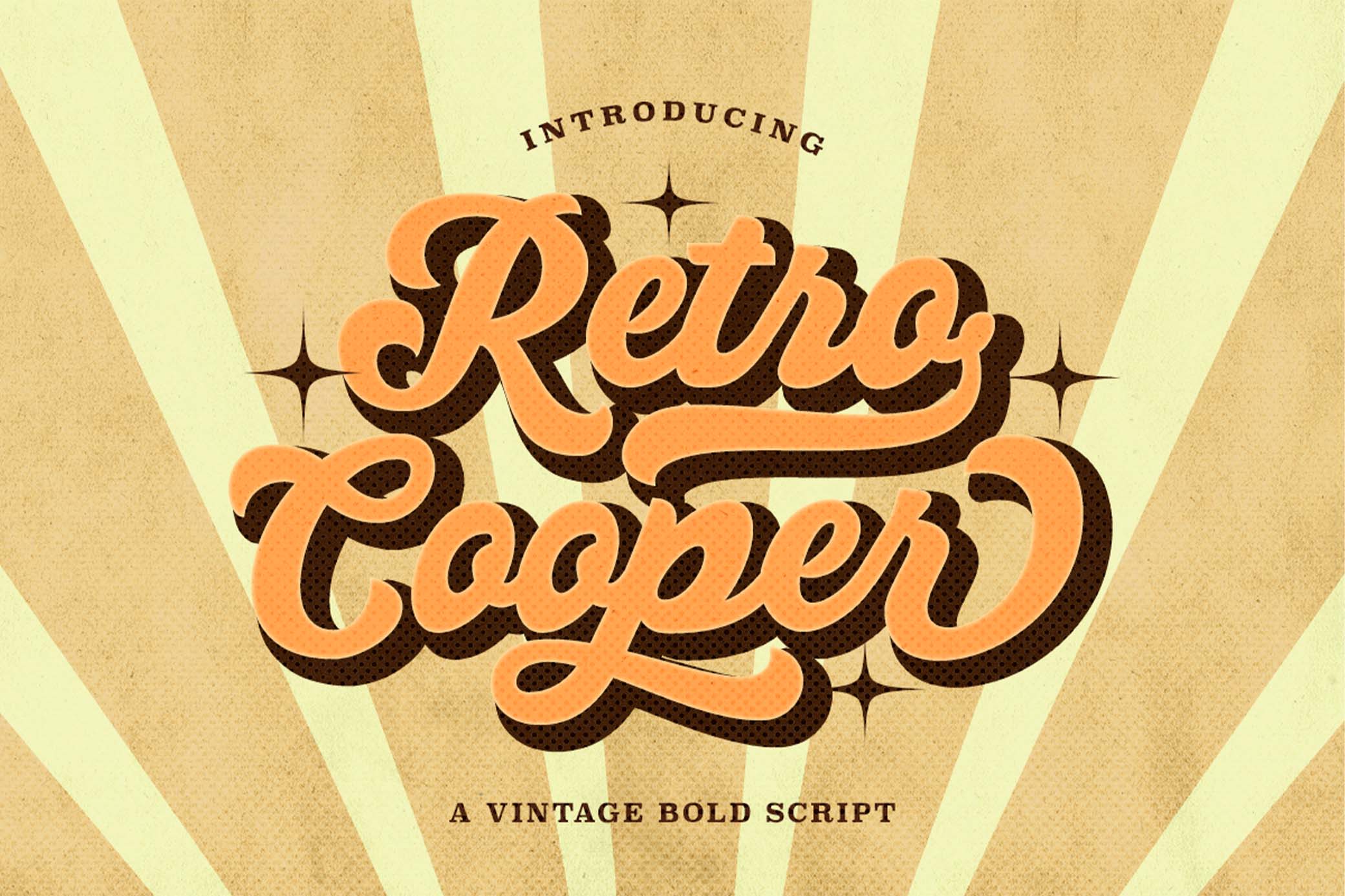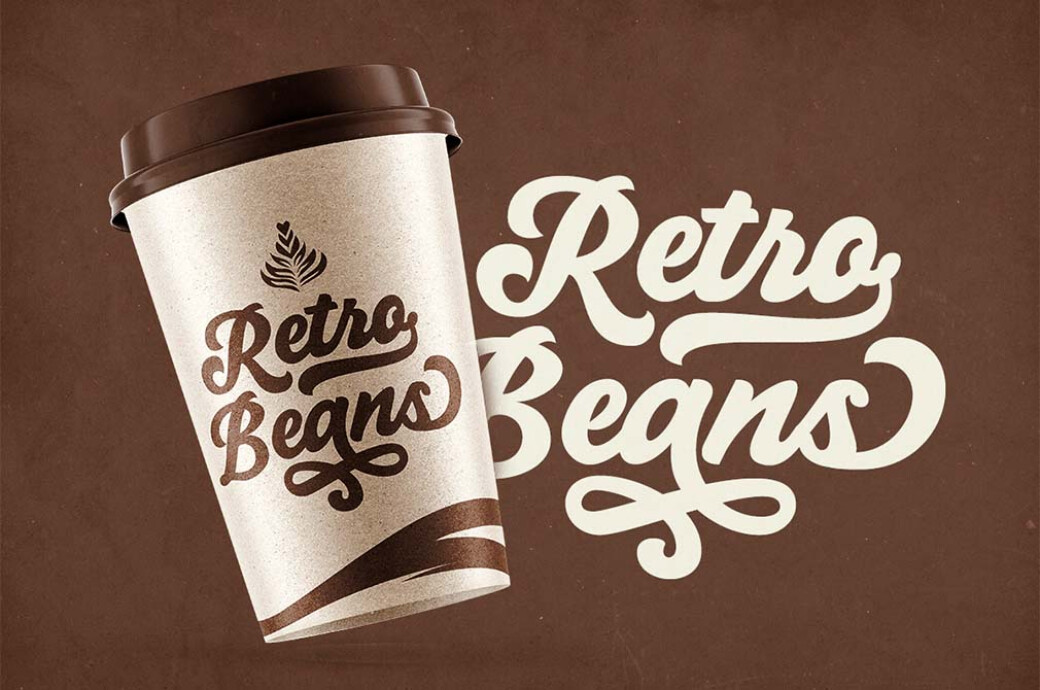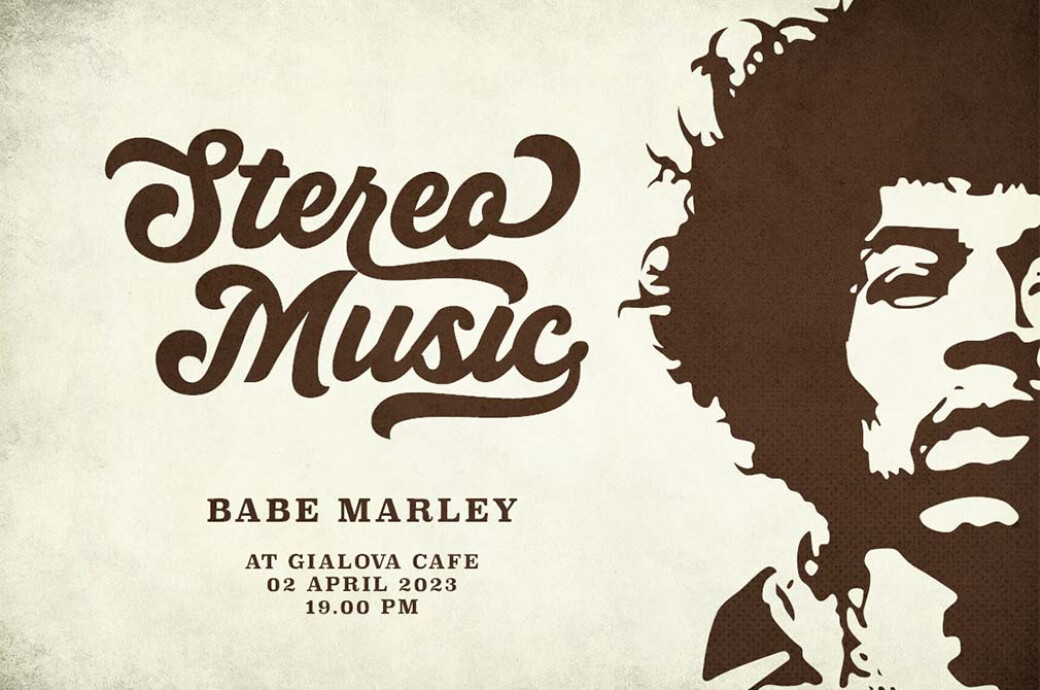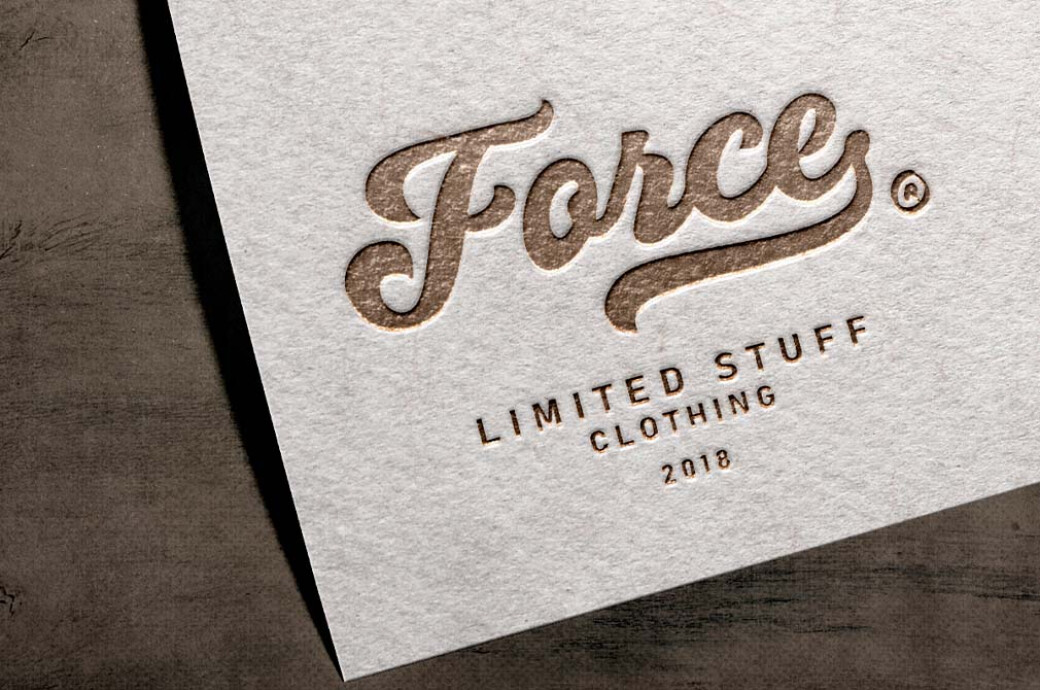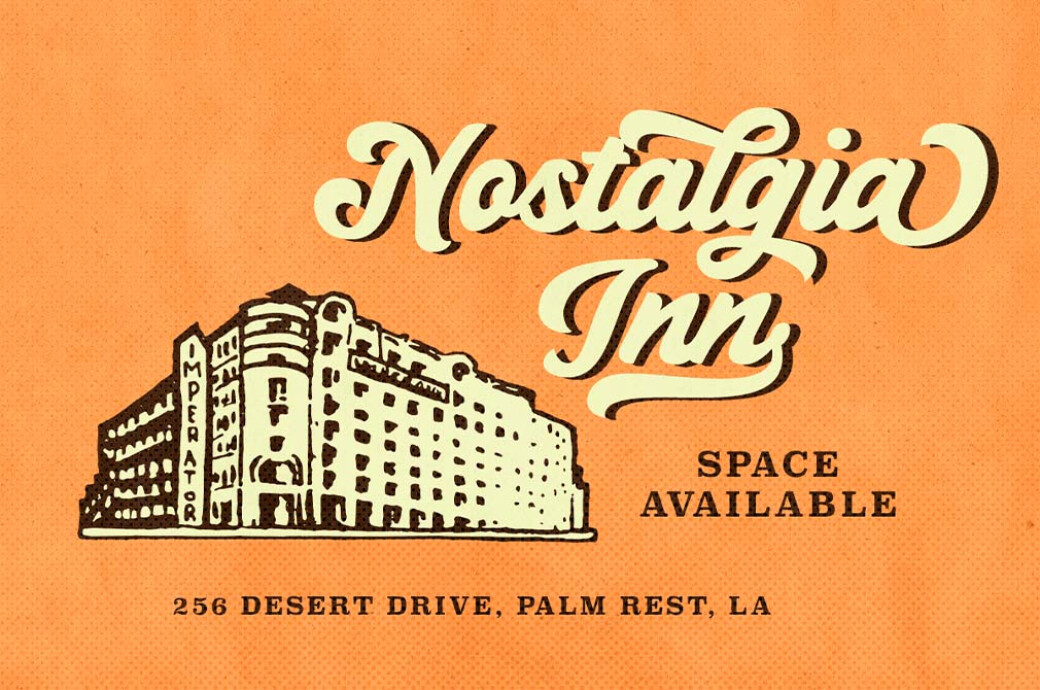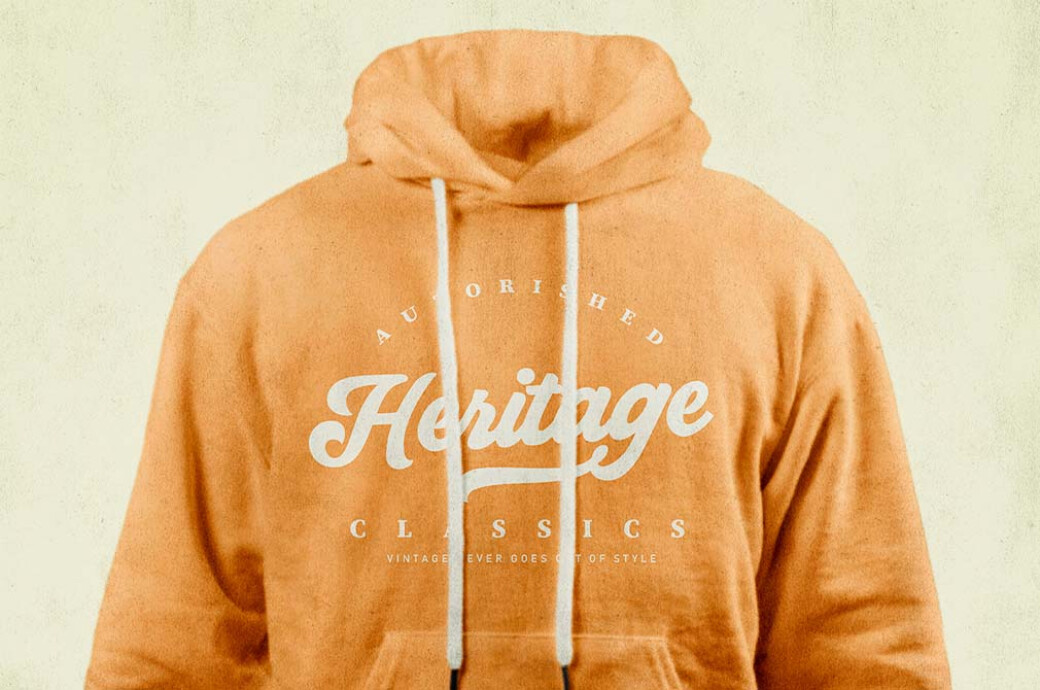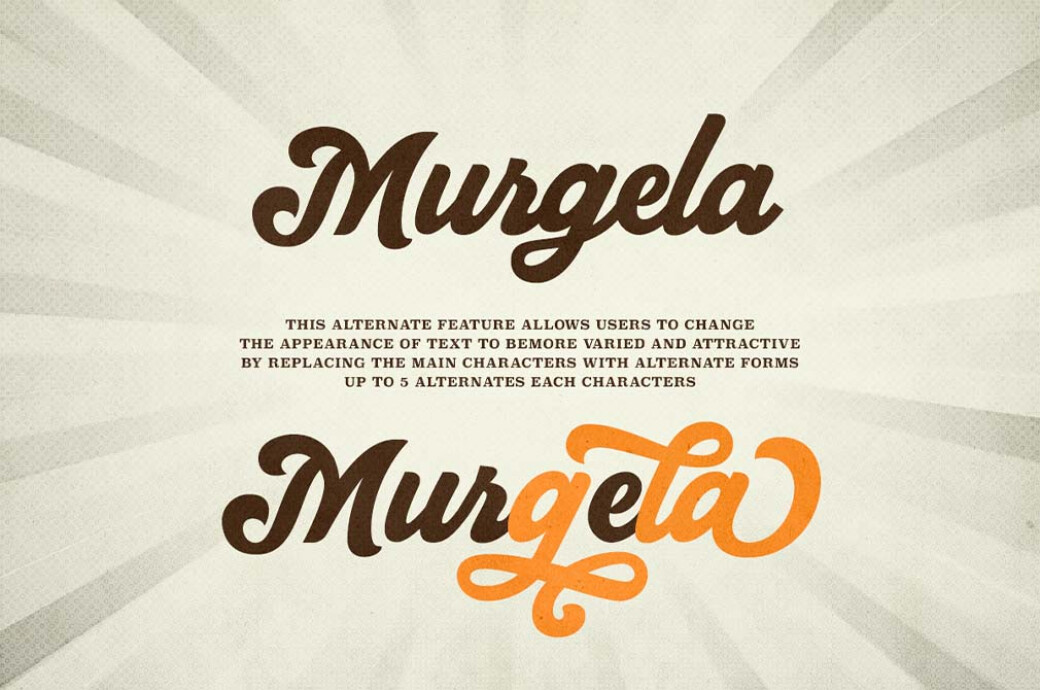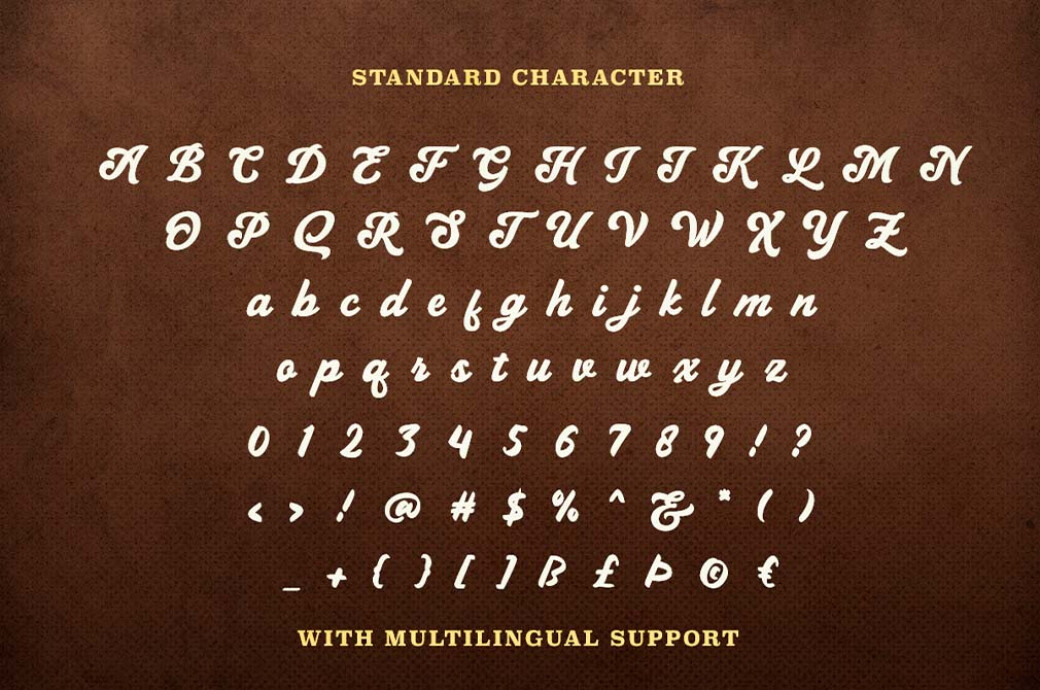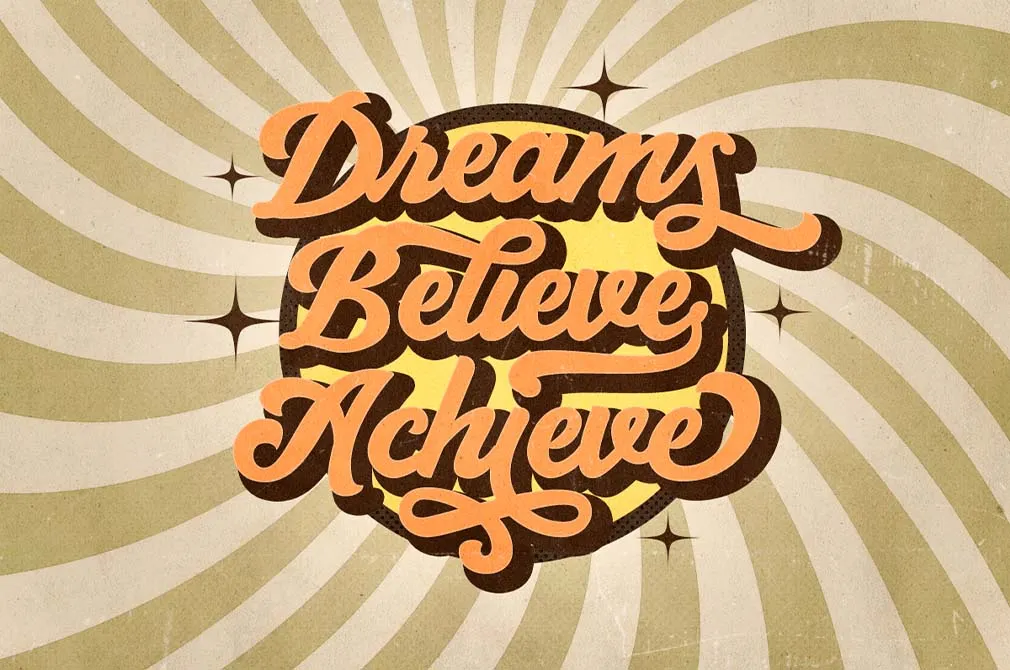
Retro Cooper — Vintage Bold Script
Do you mind if we liken this ultimately elegant font to Chevrolet, the legend of the 1950s? Retro Cooper is worth a vintage collection, but it's here, ready to become your typographic workhorse from the fanciest design decade.
We've featured hundreds of retro fonts, but our library lacks fancy 1950s-1960s fonts for some reason. Let's fix that. Meet Retro Cooper, an authentic display script that would fit both a new French movie poster and a nostalgic t-shirt. It features a complete set of characters, no compromises. Plus, there are symbols, punctuation, numerals, and multilingual support. Last but definitely not least, you'll have 5 alternates for each letter to play with their ascenders, descenders, spurs, and tails.